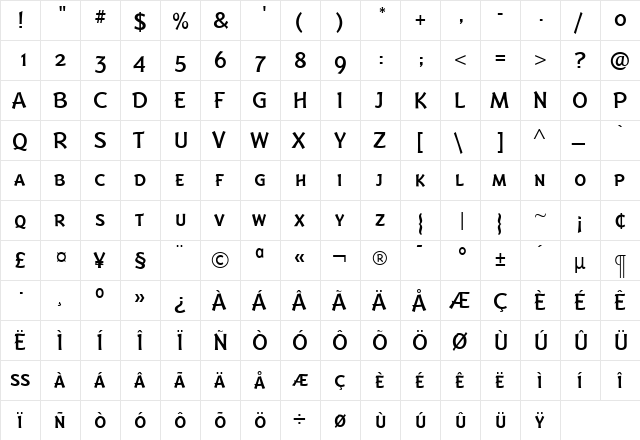
BadgerMediumExpert Roman
Design Context for BadgerMediumExpert Typeface
BadgerMediumExpert offers clean, dependable letterforms without strong stylistic allegiance, making it a practical choice for designers who need flexibility.
Pro Tip: Use BadgerMediumExpert in both headline and body roles to test its range before committing to a single application.